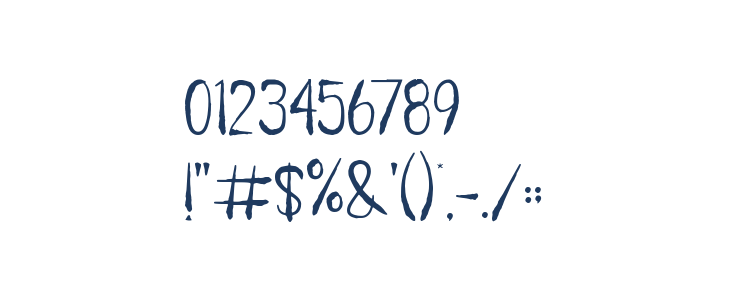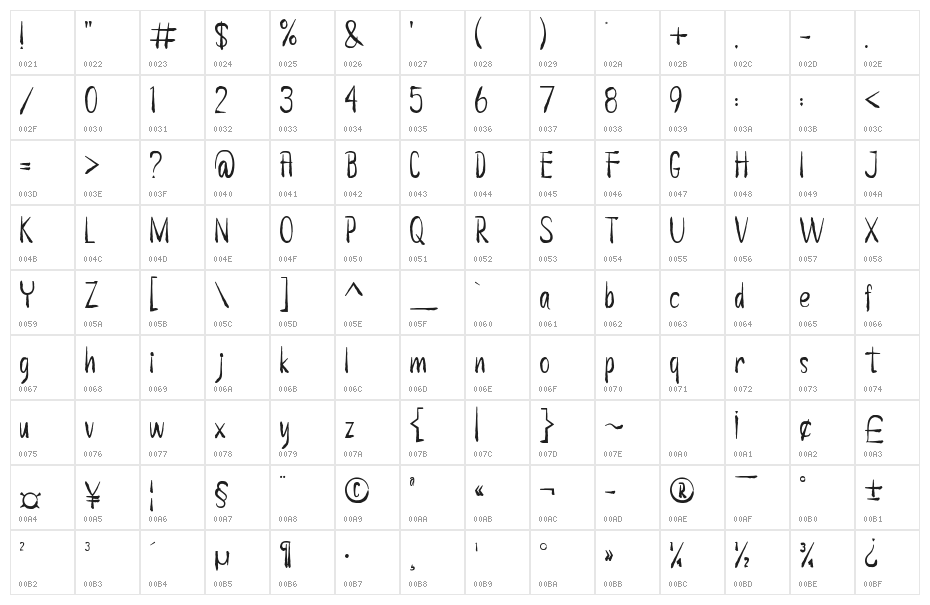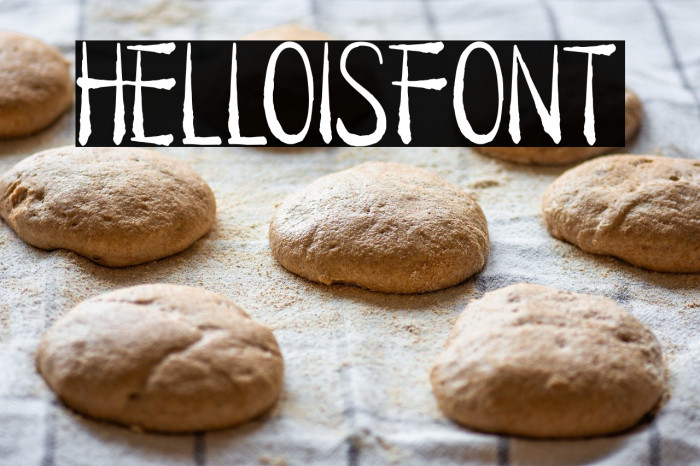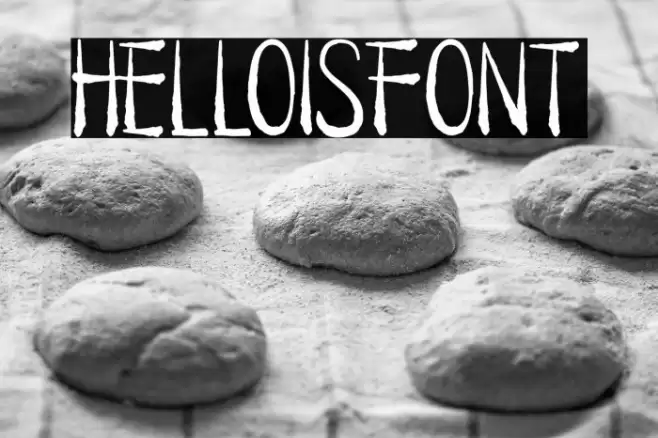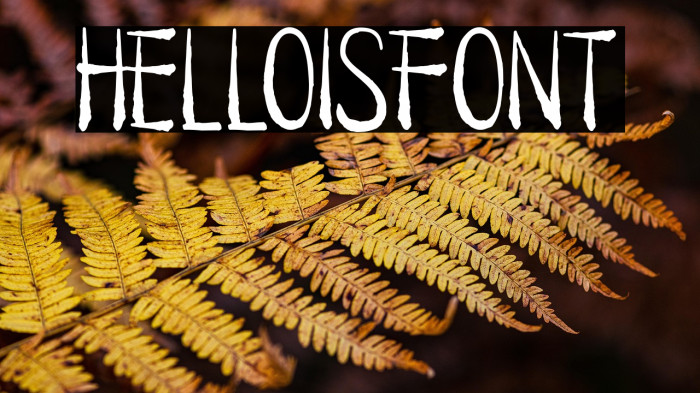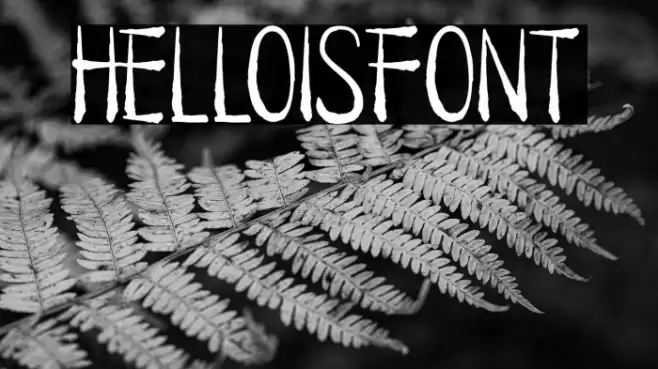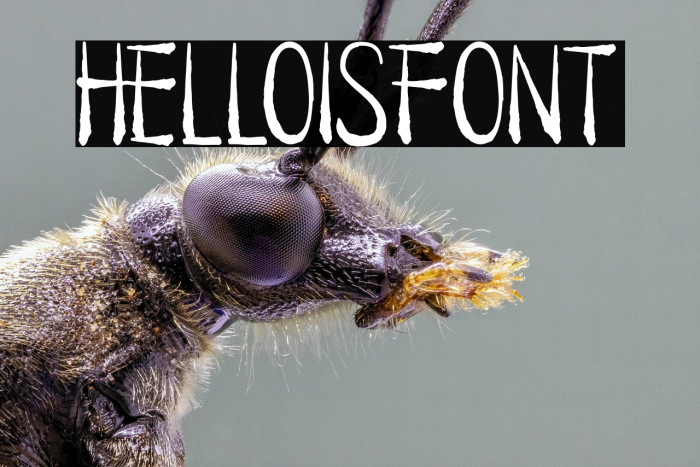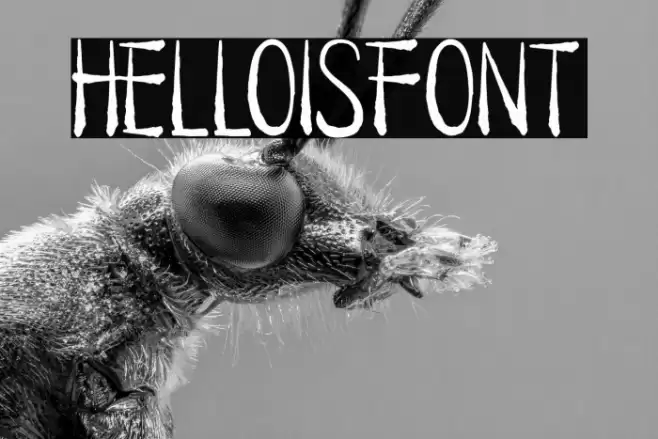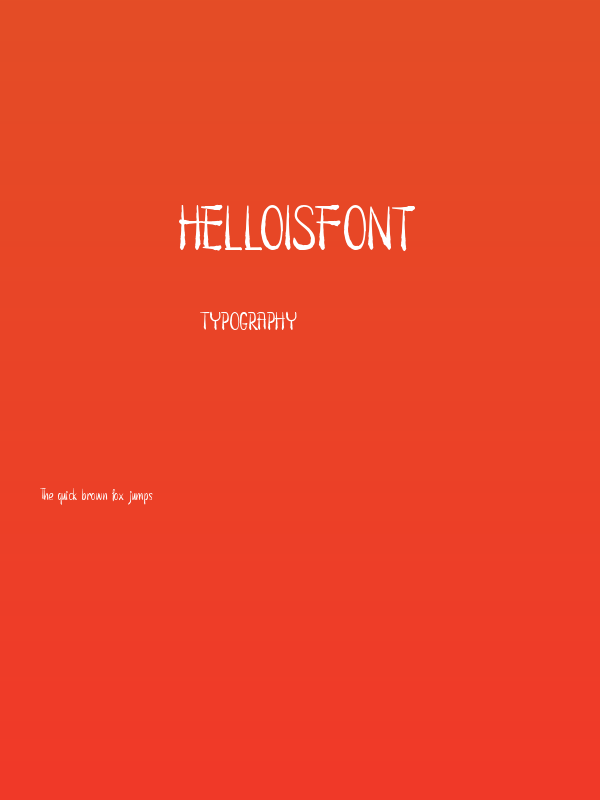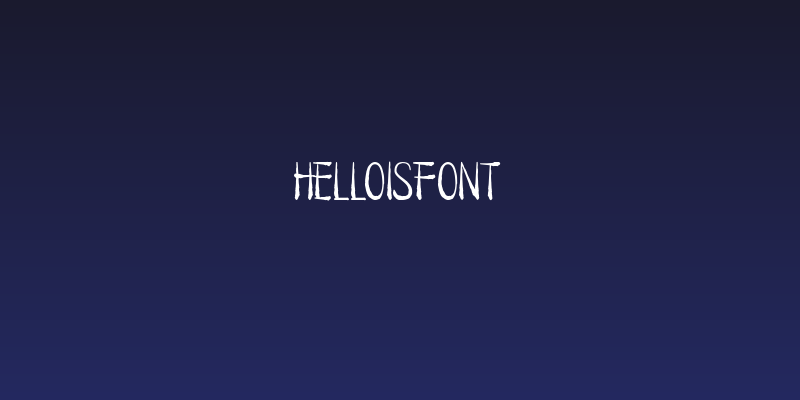
HELLOISFONT Font
HELLOISFONT Description
This font features a dynamic and expressive handwritten style, characterized by its irregular and organic strokes. The letters have a playful and artistic flair, with varying thicknesses that give it a lively and spontaneous appearance. The uppercase and lowercase letters maintain a consistent style, while the numerals and special characters complement the overall aesthetic. The font's unique personality makes it stand out, offering a creative and informal vibe that is both approachable and visually engaging.
| Proposed Projects | Ideal for creative projects such as greeting cards, posters, and branding materials that require a personal and artistic touch. |